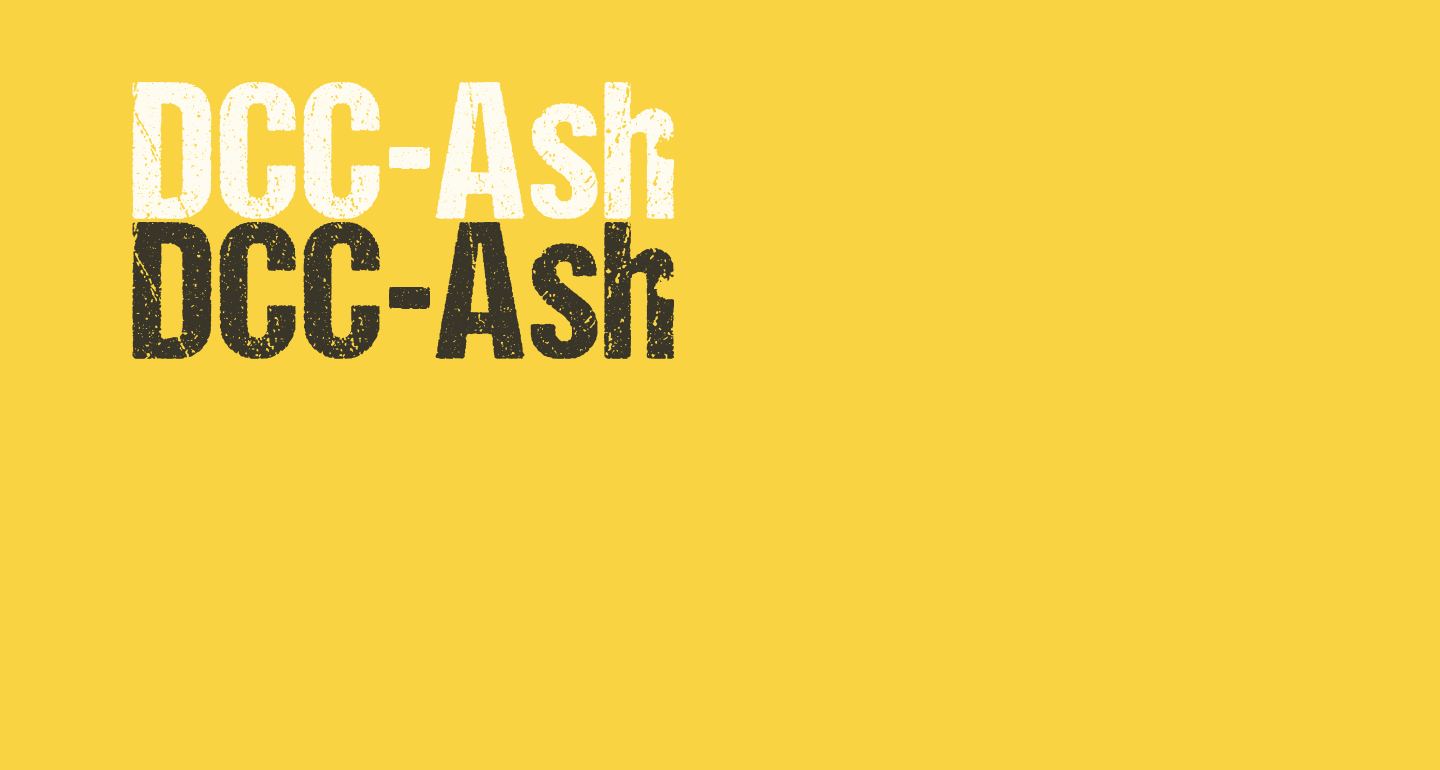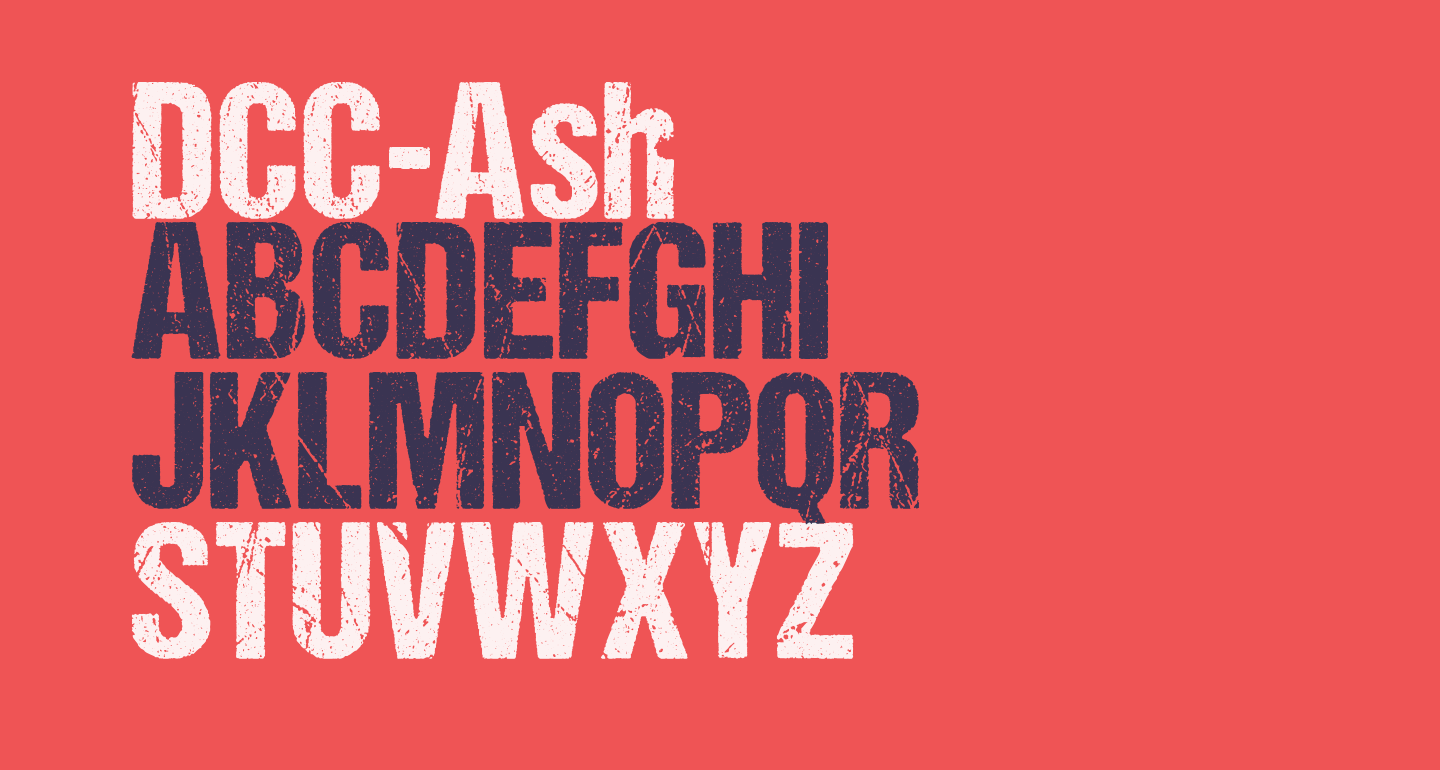
Review Of Dcc Ash Font References
Review Of Dcc Ash Font References. Of course is my font, what do you think? Web if you recognize the font from the samples posted here don't be shy and help a fellow designer.